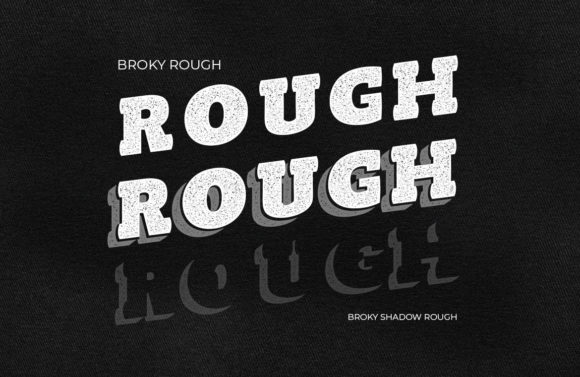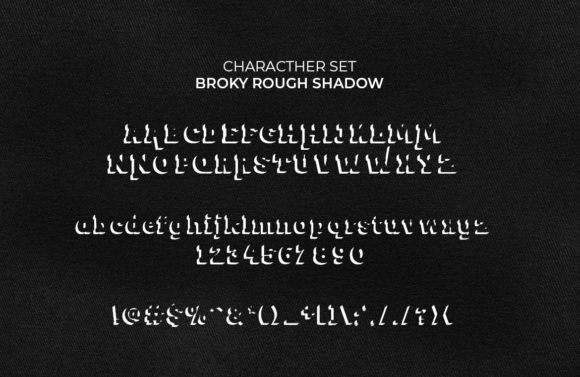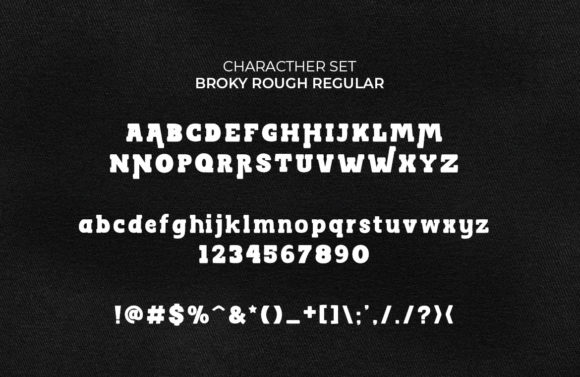
Broky Rough: A Cool and Western-Inspired Slab Serif Font
Broky Rough is a distinctive slab serif font that combines a cool aesthetic with a western-inspired look. This versatile typeface is designed to be an incredible asset to your font library, with the potential to elevate any creation regardless of the topic.
Key Features of Broky Rough
- Cool Design: Features a trendy and appealing appearance that resonates with modern design trends.
- Western-Inspired Look: Incorporates elements reminiscent of the Old West, perfect for rustic or vintage-themed designs.
- Slab Serif Structure: Maintains the characteristic thick, rectangular serifs typical of slab serif fonts.
- Rough Texture: Adds a weathered, distressed look for an authentic vintage feel.
- Versatile Application: Suitable for a wide range of projects, from branding to editorial designs.
Ideal Uses for Broky Rough
Broky Rough’s unique characteristics make it particularly well-suited for:
- Western-themed branding and logo design
- Rustic packaging and product labels
- Vintage-inspired poster and advertisement layouts
- Book covers for historical or western novels
- Restaurant menus with a rustic theme
When incorporating Broky Rough into your designs, consider the following tips:
- Use for headlines or short blocks of text to maximize its western-inspired impact
- Experiment with different sizes to highlight the font’s unique rough details
- Consider pairing with simpler sans-serif fonts for body text to create contrast
- Take advantage of its versatility across various themes and styles in your projects
Broky Rough is an excellent choice for designers looking to add a cool and western-inspired slab serif font to their typographic toolkit. Its ability to enhance various design projects makes it stand out in the world of typography. Whether you’re working on logo designs for a rustic brand, creating layouts for western-themed events, or developing content that requires a touch of vintage charm, Broky Rough offers the perfect blend of coolness and western aesthetics.
Add Broky Rough to your font library and explore how it can elevate your designs with its cool and western-inspired style. From eye-catching headlines to engaging branding elements, this font provides the tools to create impactful and memorable typography that resonates with audiences seeking a touch of the Old West. It’s versatile enough to be used in various contexts, from vintage-inspired designs to playful layouts that need a rugged edge.
Whether you’re creating a magical and mysterious atmosphere with a western twist or aiming for a more thoughtful and introspective mood in your designs, Broky Rough can adapt to your needs. Its flexibility allows it to work well in both rustic, vintage-style projects and holiday-themed designs that require a western flair. For those looking to add a touch of nostalgia with a rugged feel, this font can even complement vintage Christmas-inspired creations with a unique, western twist.